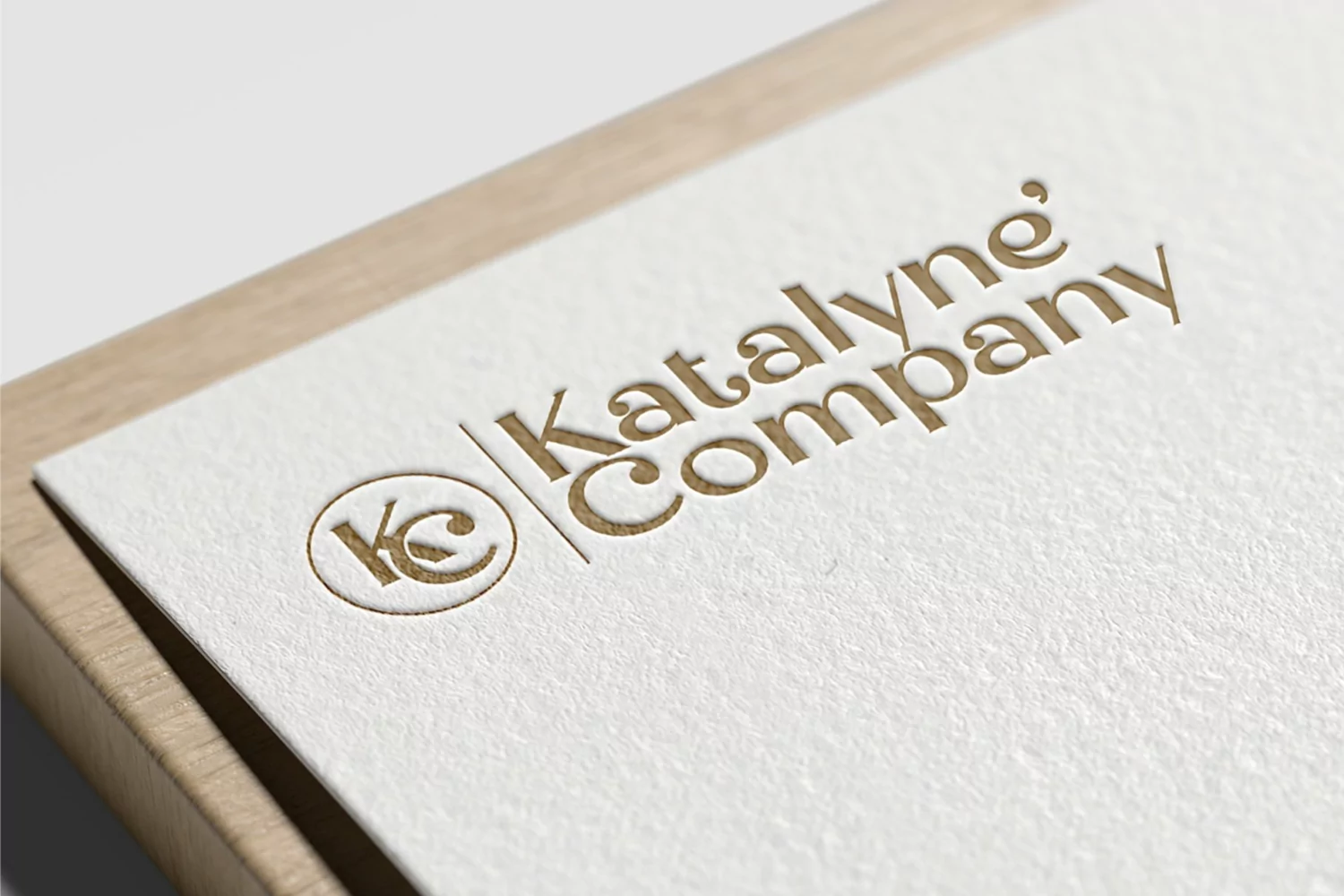
Gona is a new serif display typeface. Perfect for display, poster, quotes, film, craft needs, book cover, business card, packaging, merchandise, branding, logo, logotype, header, title, and many more.